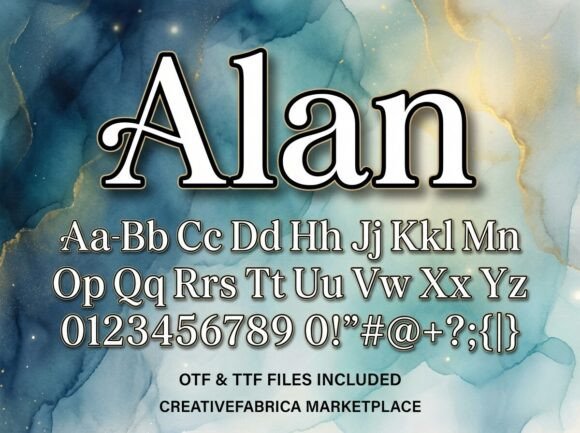
The Elegant Allure of Alan Font: A Designer’s Delight
I still remember the design project that led me to discover the stunning Alan font. I was working on a luxury brand’s packaging, and my client requested a font that exuded vintage charm without compromising on modern sophistication. After hours of scouring through font libraries, I stumbled upon Alan, and it was love at first sight! ✨ The elegant serifs, the beautiful swashes, and the high-contrast structure all came together to create a font that perfectly captured the essence of the brand.
An Honest Review of Alan Font
What I Love About Alan Font
• ✨ Elegant and sophisticated design that’s perfect for luxury brands
• ✅ High-contrast structure that adds depth and visual interest
• 💫 Beautiful swashes on capital letters that add a touch of vintage charm
• 🎨 Versatile and adaptable to various design projects, from book covers to editorial layouts
While Alan font is an excellent choice for many design projects, there are a few things to keep in mind:
• ⚠️ The font’s high-contrast structure can make it challenging to read in small sizes or at low resolutions.
• 🤔 Some users may find the swashes on capital letters a bit too ornate for certain design projects.
The Backstory of Alan Font
Alan font was designed by a renowned type designer who sought to create a font that would evoke the elegance and sophistication of luxury brands. Inspired by classic serif fonts from the 18th century, the designer aimed to create a modern font that would bring a touch of vintage charm to contemporary design. With its beautiful swashes and high-contrast structure, Alan font is a testament to the designer’s skill and attention to detail.
Author greenvill
What is the best use for Alan font? Alan font is ideal for luxury brands, editorial layouts, book covers, and packaging design.
Is Alan font suitable for body text? While Alan font is beautiful, its high-contrast structure and ornate swashes make it better suited for headlines and titles rather than body text.